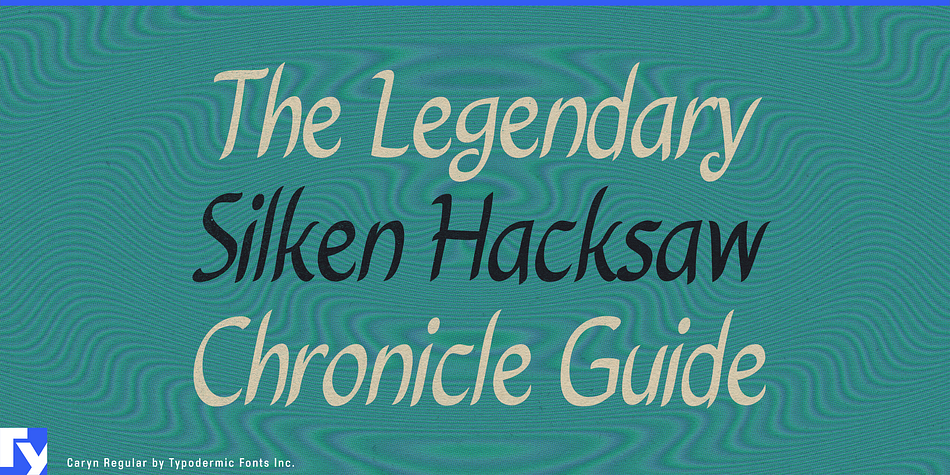
Caryn
Caryn is a brush script font family. This typeface has two styles and was published by Typodermic Fonts Inc.
Y’all, have you met Caryn? She’s a typeface that’s as friendly as a front porch conversation on a sunny day. With her short brush strokes and swooping flourishes, she’ll make your words sing with genuine warmth and charm.
Caryn is like a cozy quilt or a hot apple pie, bringing a homemade touch to everything she touches. Whether you’re crafting a wedding invitation, designing a logo for your farm stand, or just writing a letter to a friend, she’ll help you express your message with a down-to-earth grace.
And here’s the best part: Caryn doesn’t put on airs. She’s unassuming and approachable, like a neighbor who always has a smile and a kind word. You don’t need fancy design skills or a big budget to make Caryn work for you. She’ll fit right in with your homespun style and make you look like a pro.
So if you want to add a touch of warmth and hospitality to your next project, give Caryn a try. She’s the perfect typeface to welcome your readers, customers, or loved ones with open arms.